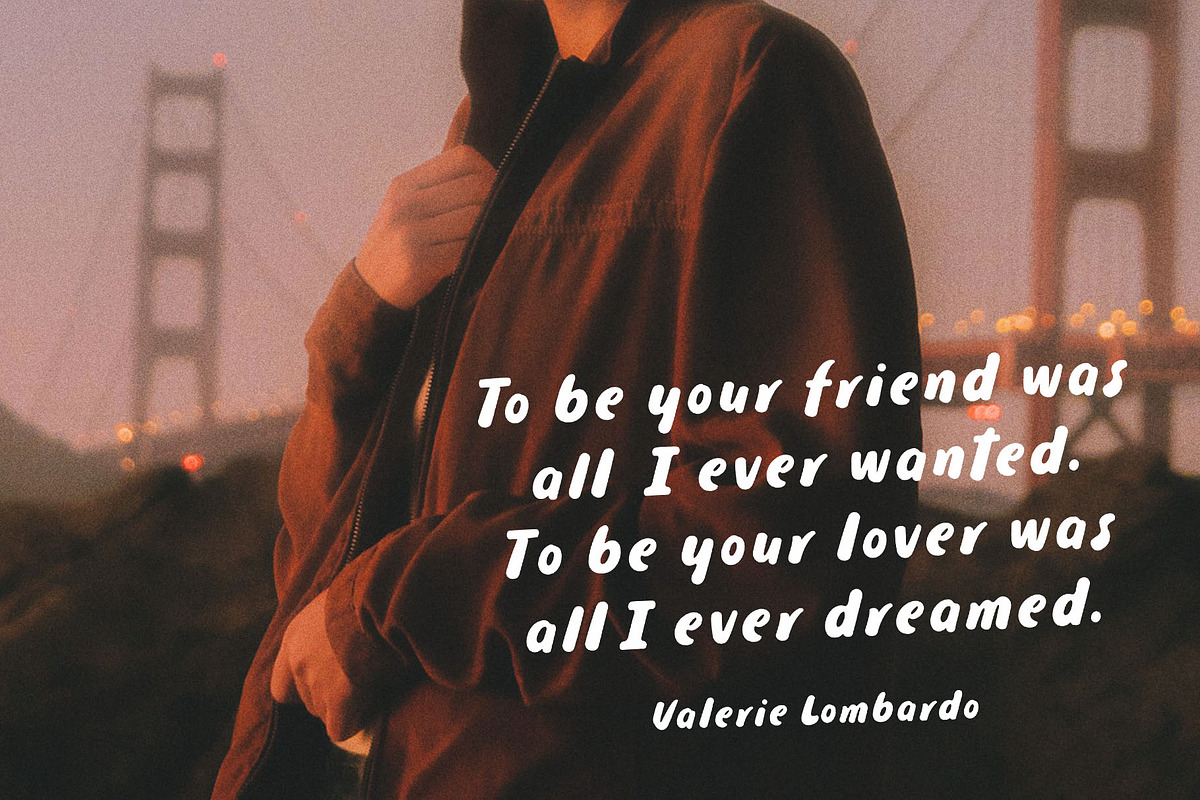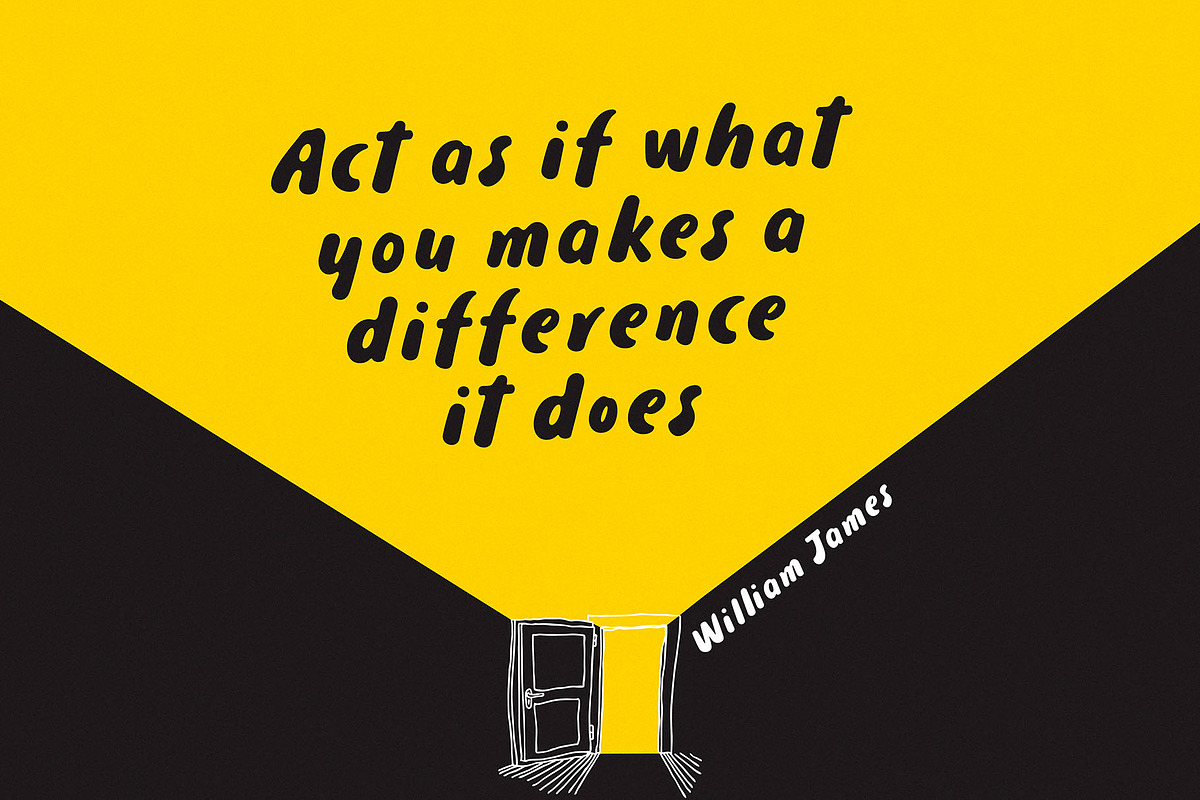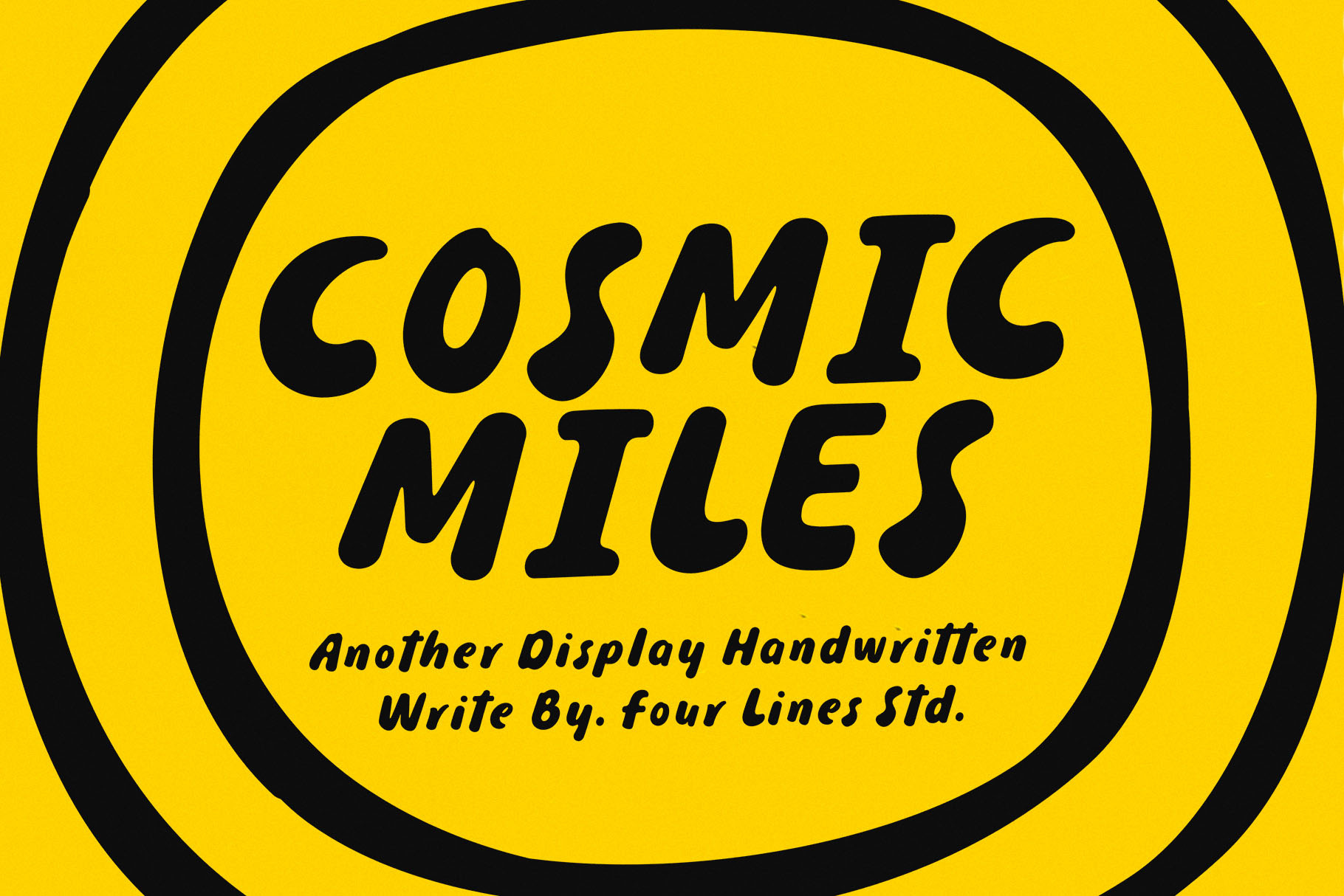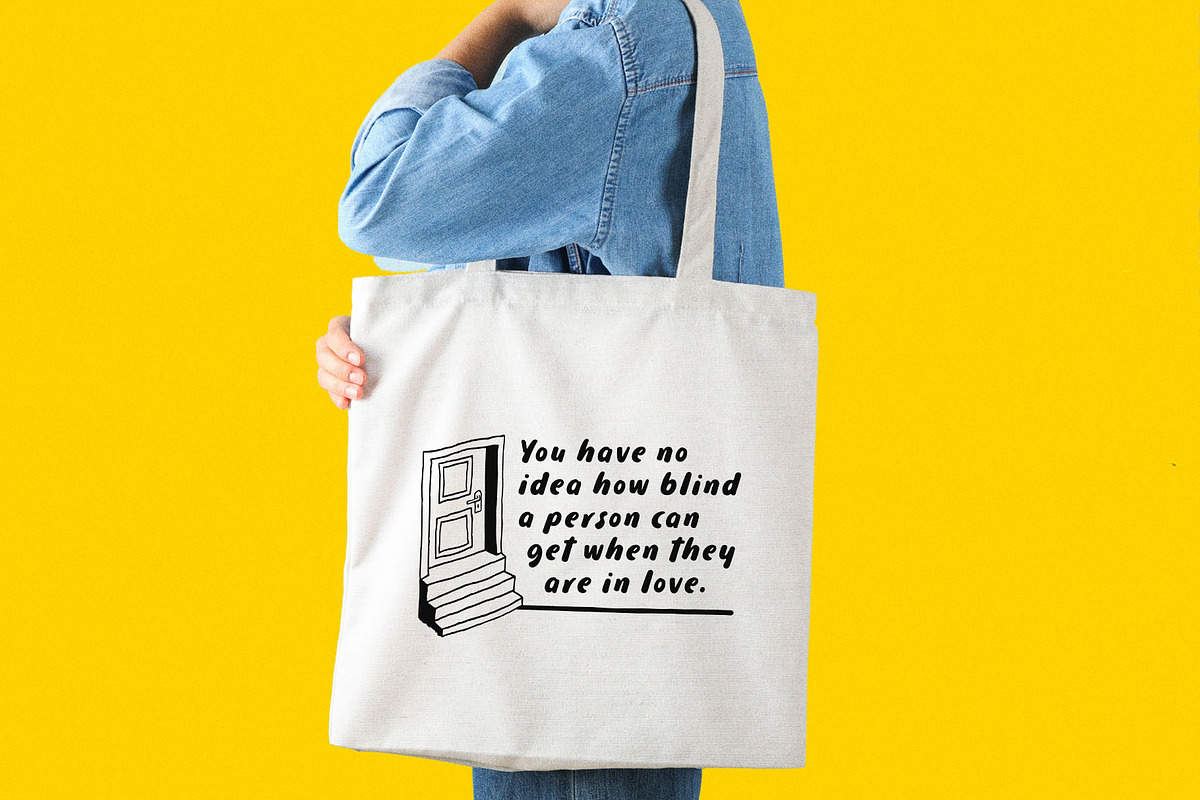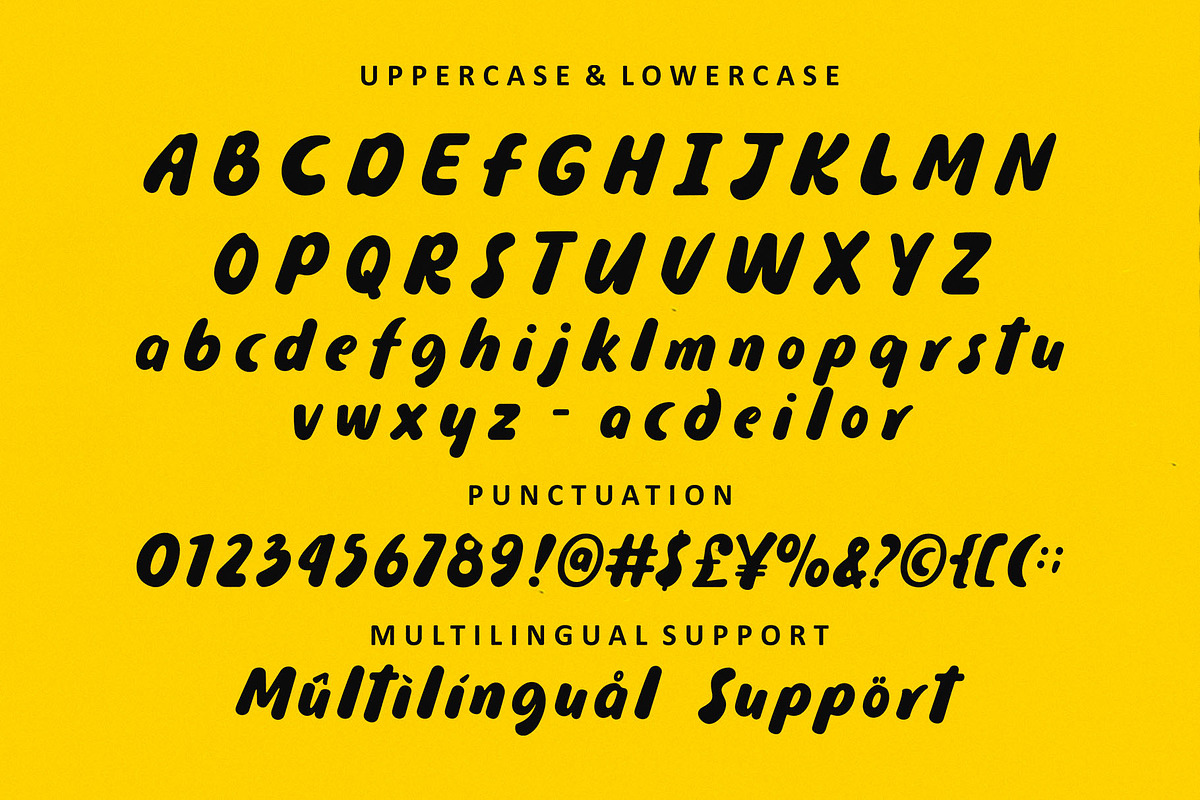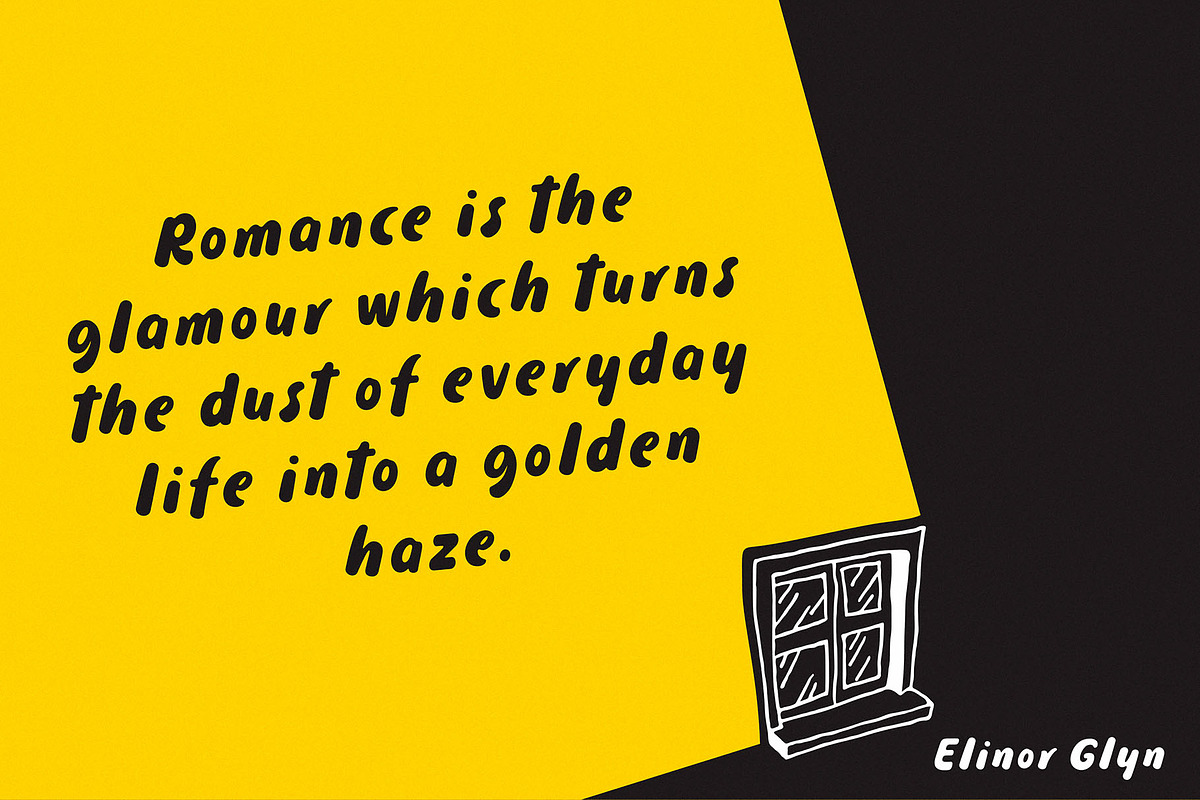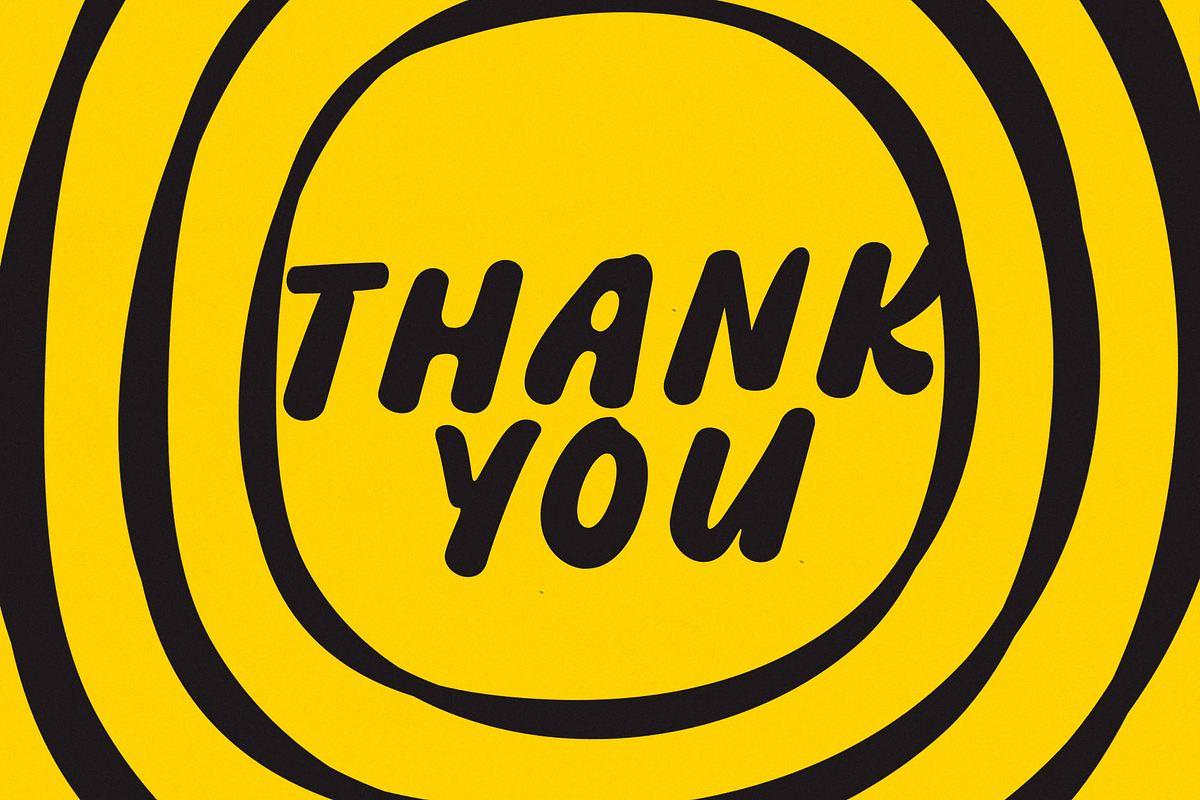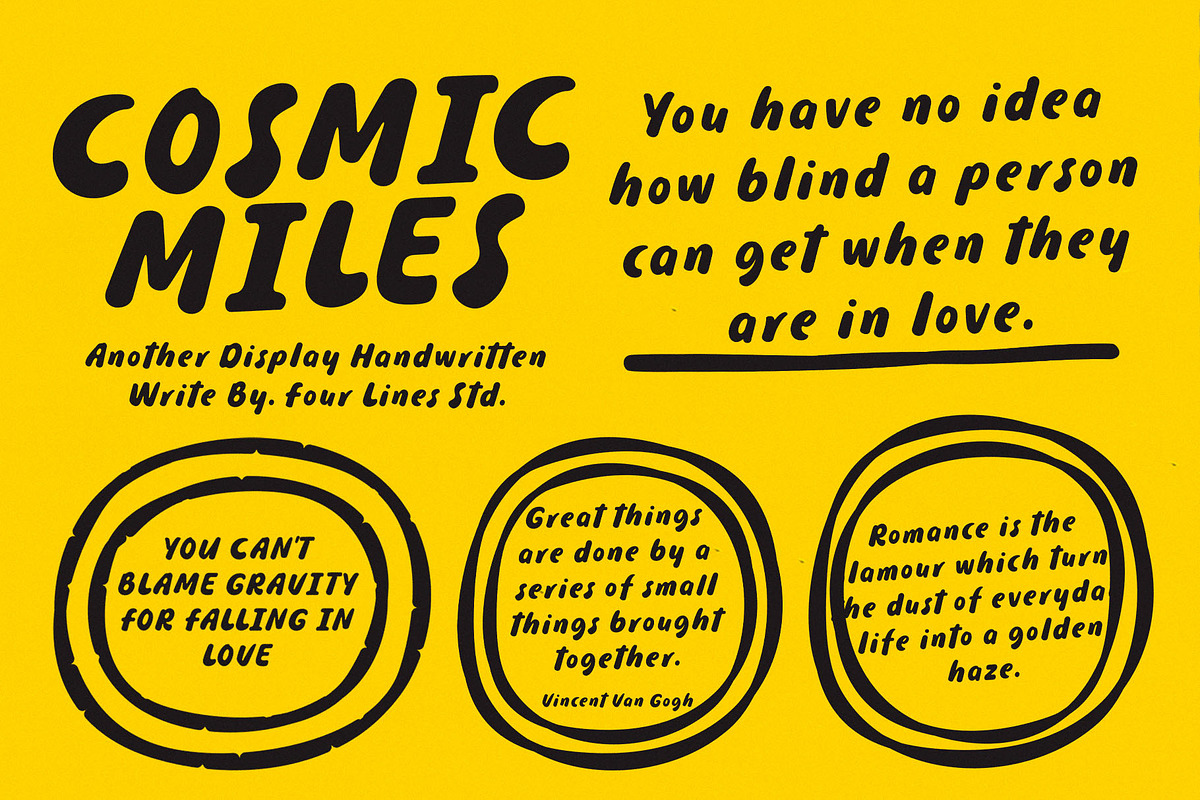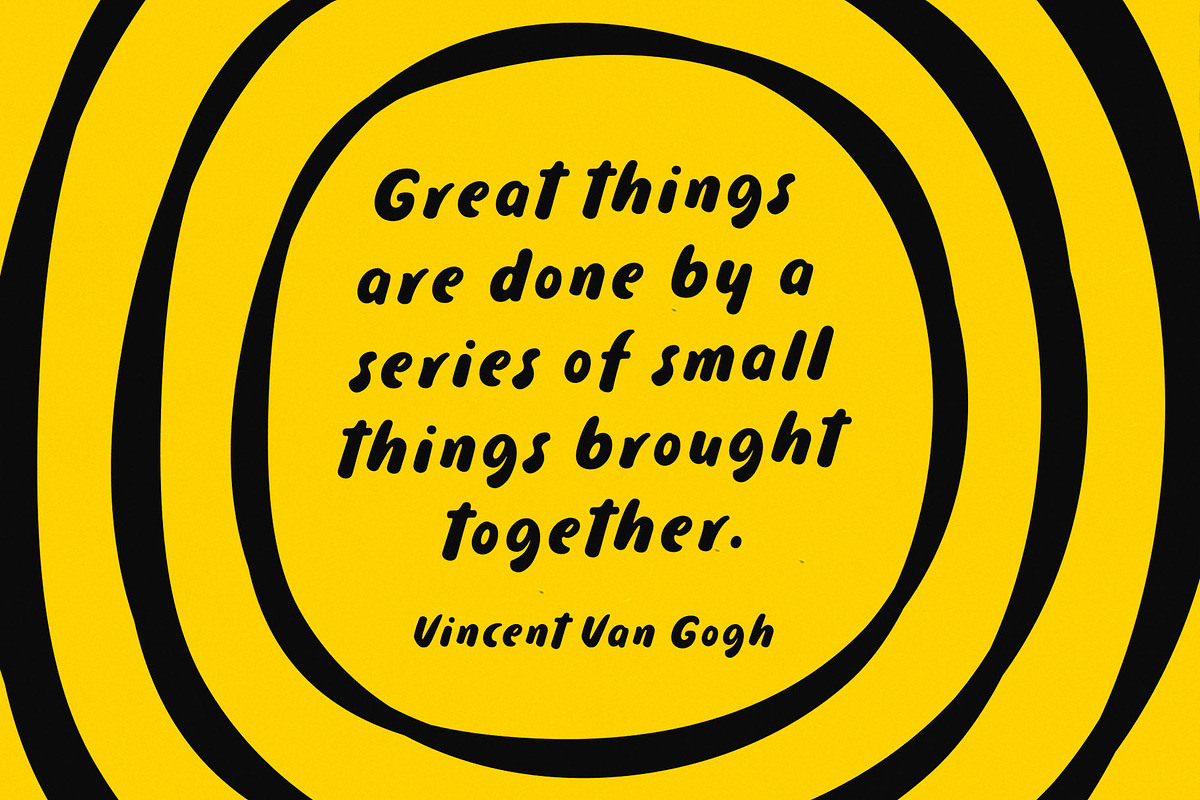
Cosmic Miles - Hand Drawn Font
Introducing Cosmic Miles: A Captivating Handwritten Font for Inspiring Quotes. Elevate your designs to new celestial heights with Cosmic Miles, a stunning handwritten font designed specifically to breathe life into your favorite quotes. With its unique blend of thick and rounded strokes, this font encapsulates a sense of warmth and charm, adding a touch of cosmic magic to any project.